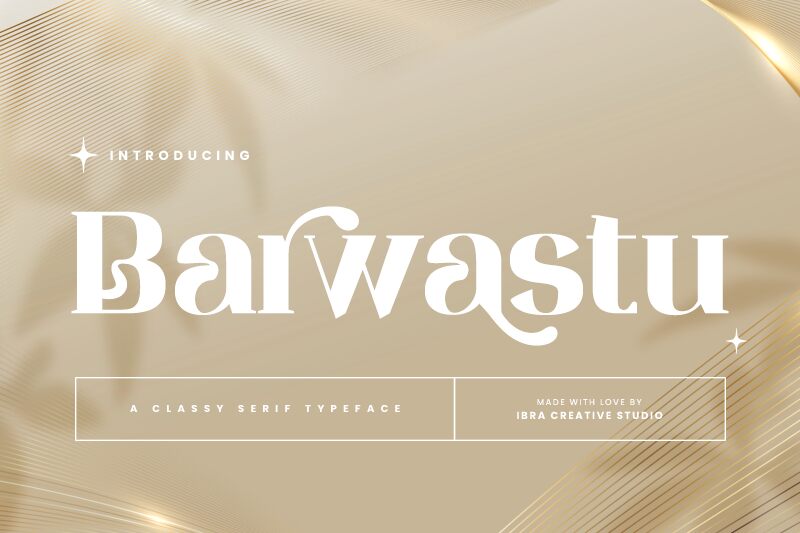
Barwastu font designed by Ibra Creative Studio is a dramatic serif font that carries an authoritative tone while still achieving refined aesthetics through its vintage-inspired design. Barwastu’s bold characters with elegant curves and flared serifs are impossible to ignore once they make their appearance on display.
Available for free, the font fits branding projects, product packaging design, formal or retro posters, social media posts, magazines or book body copy and covers. Additionally, the versatile typeface will be ideal for certificates and business cards in addition to headlines and titles of all sorts.